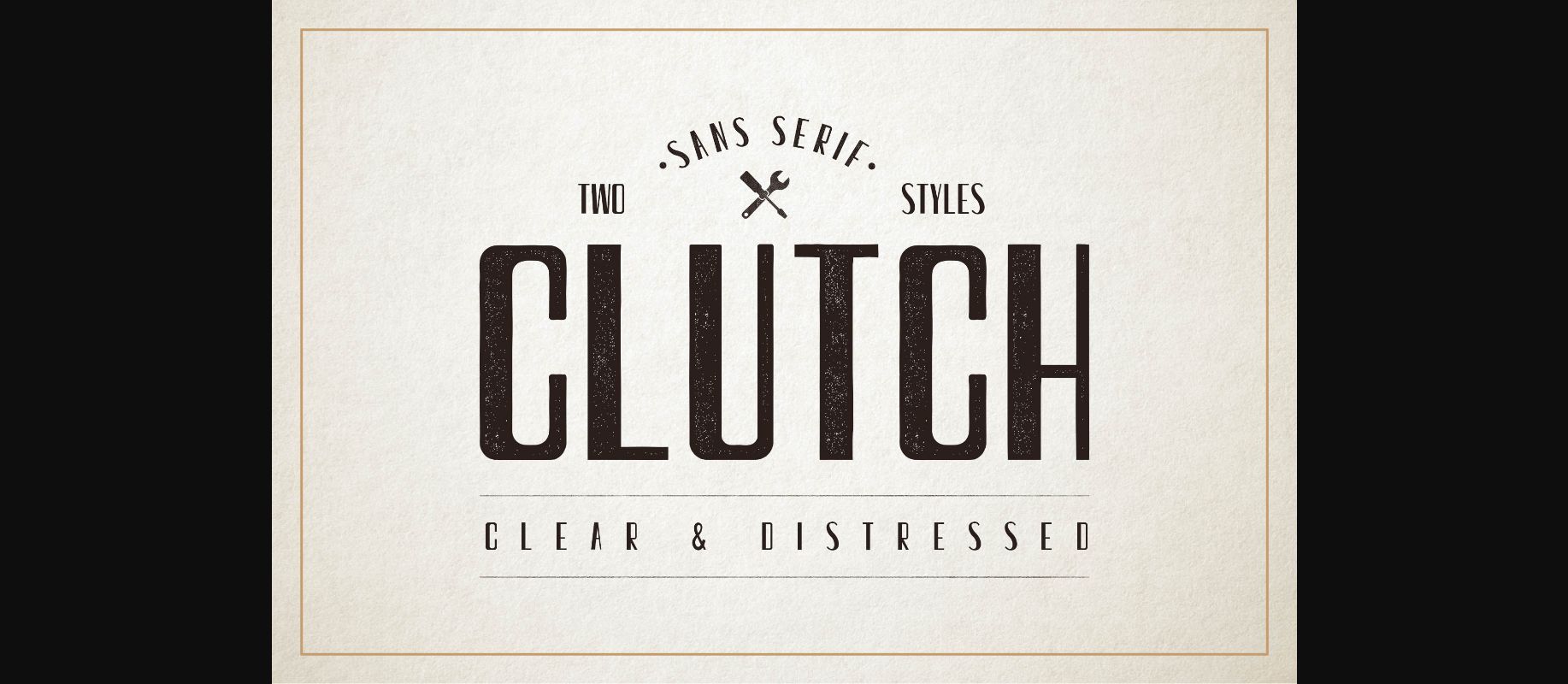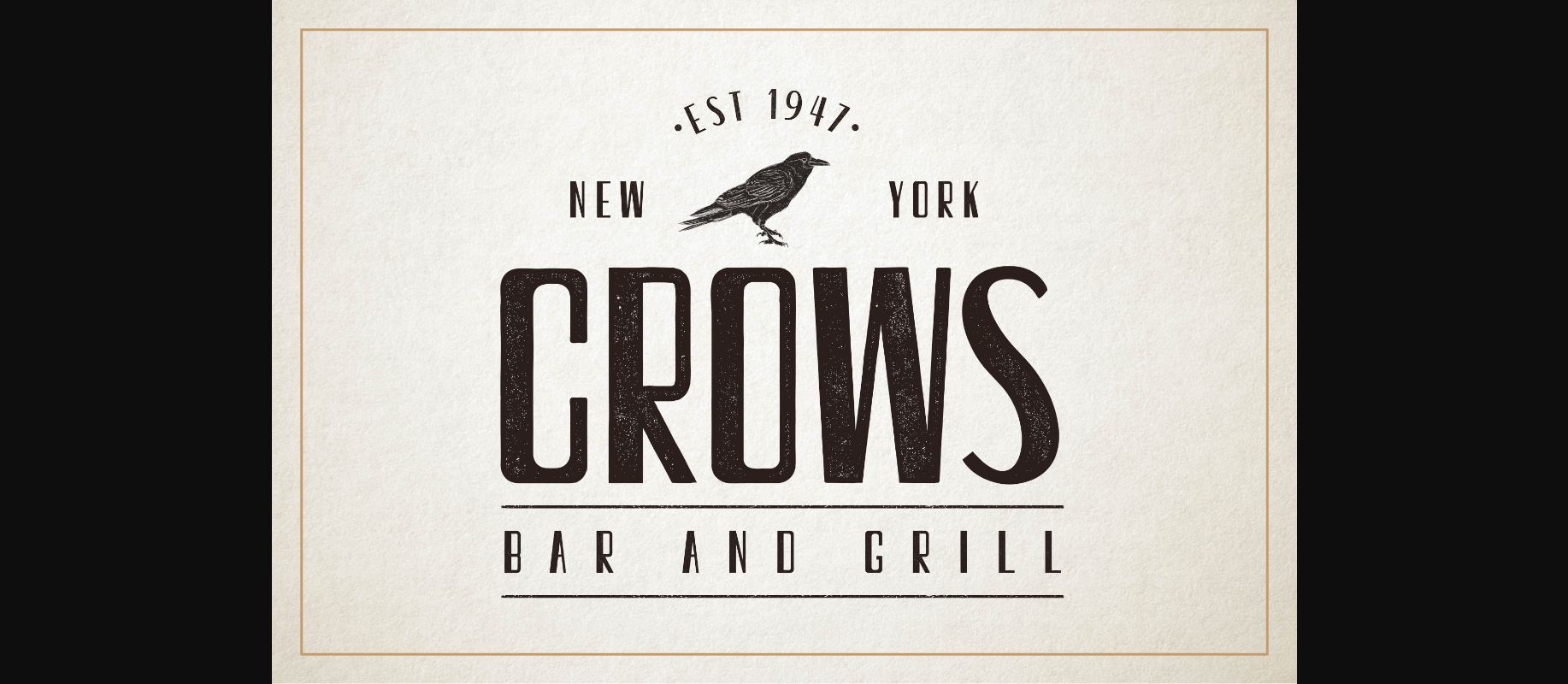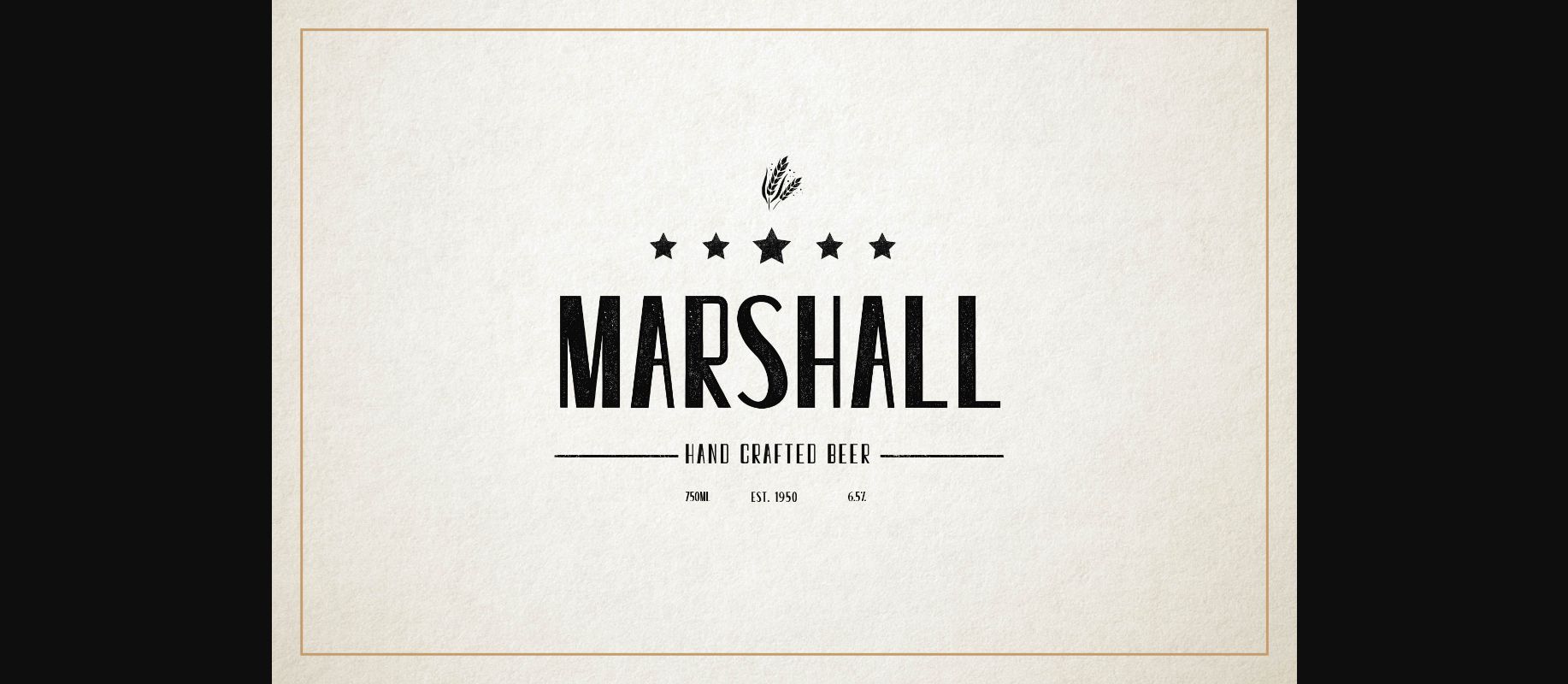
About Clutch Font
Clutch, a sans serif font that is perfect for all retro designs.
Clutch comes in two styles for more flexibility. The clean & distressed versions can easily be combined.